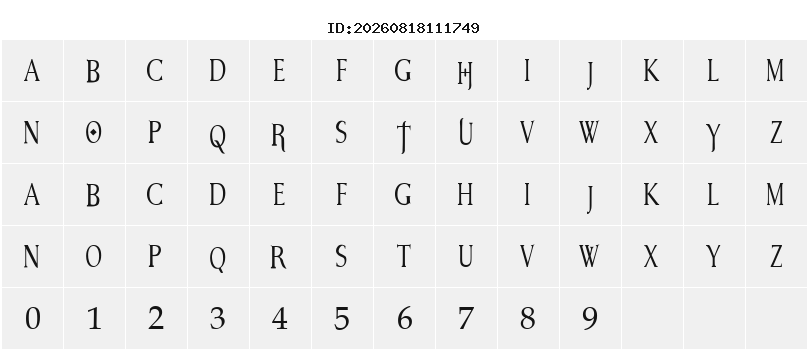
• Font Name: Snow White
• Designer: P.A.Vannucci
About Snow White.ttf
Snow White.ttf is a modern, elegant sans-serif font designed for ultimate readability and visual harmony. Perfect for branding, headlines, web design, and print materials.